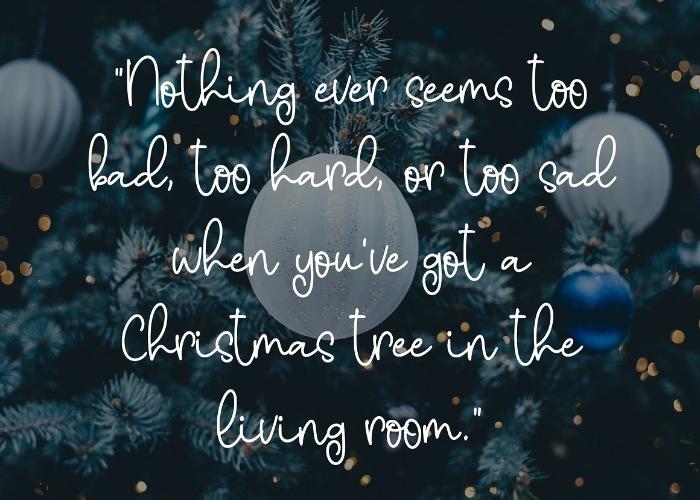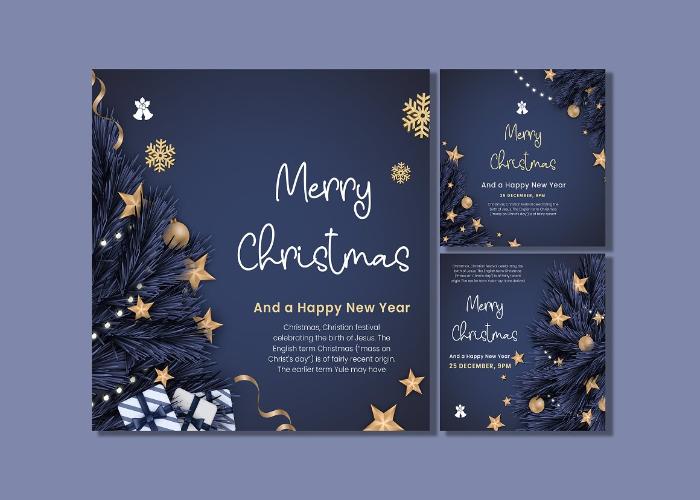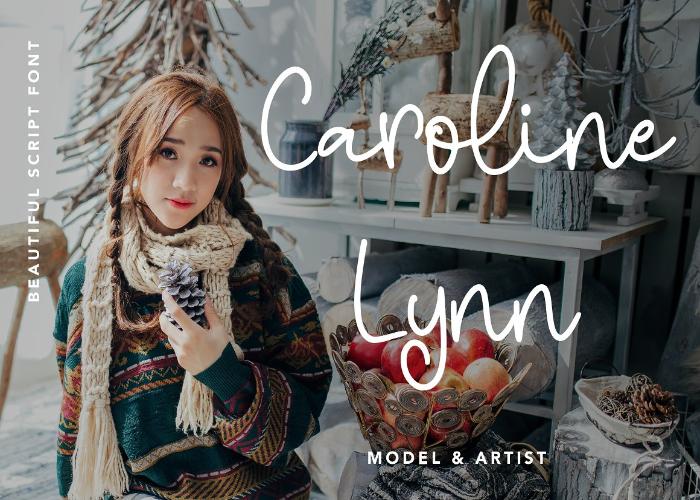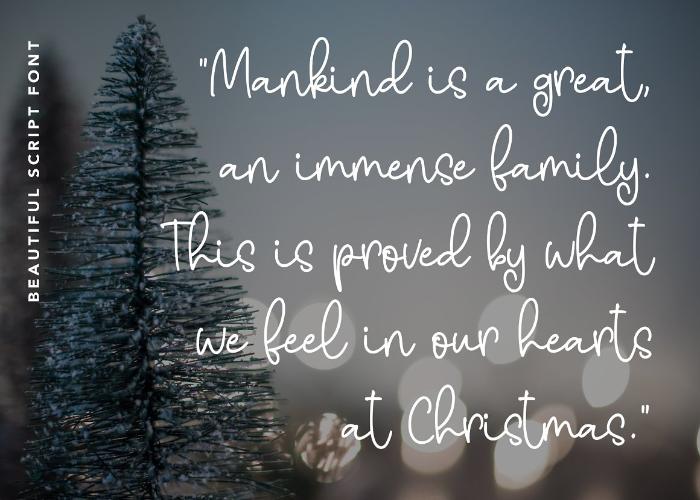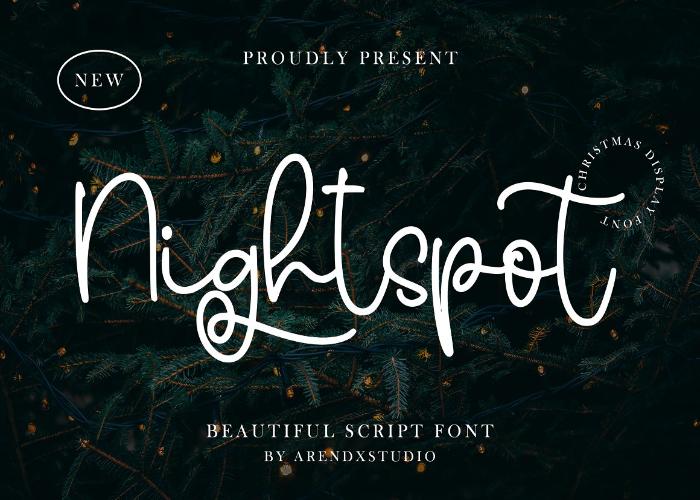
Free Beautiful Script Font
Nightspot is a free script font with distinctive handwritten characters. This font can be used for branding projects, logos, wedding designs, media posts, advertisements, product packagings, product designs, labels, photography materials, and watermarks.
This font is perfect for people who need handwritten dishes because it has multilingual characters.